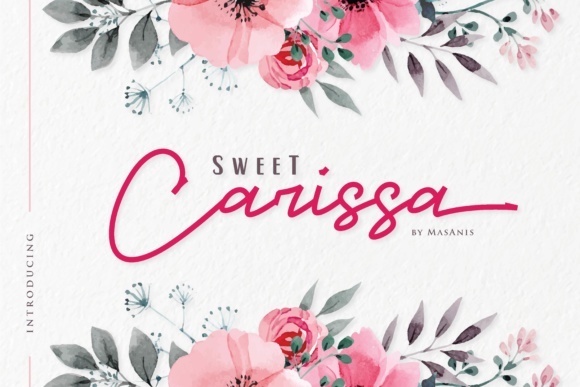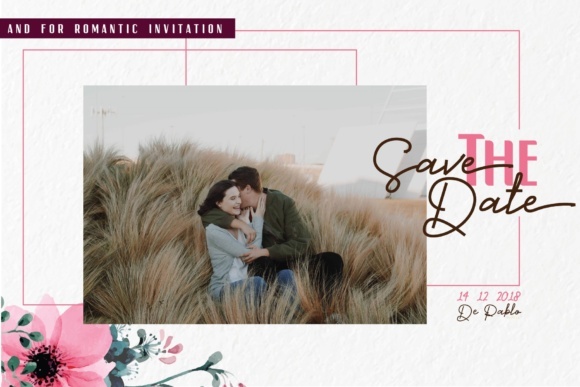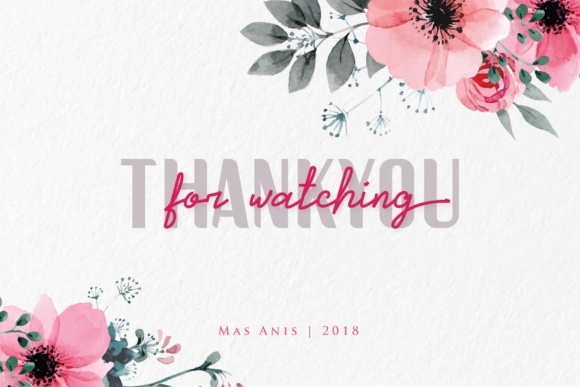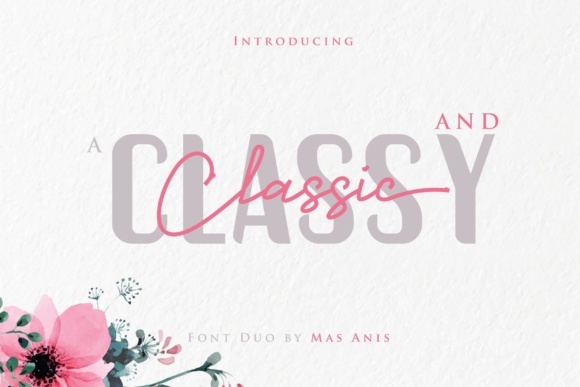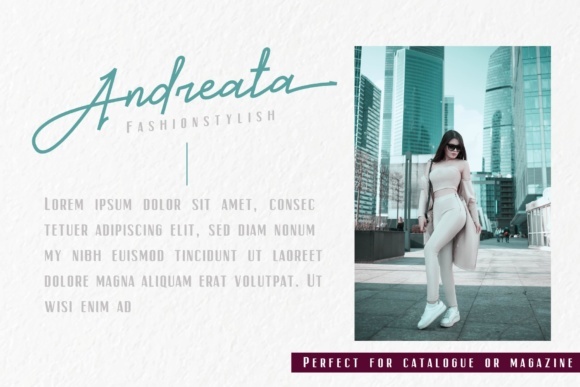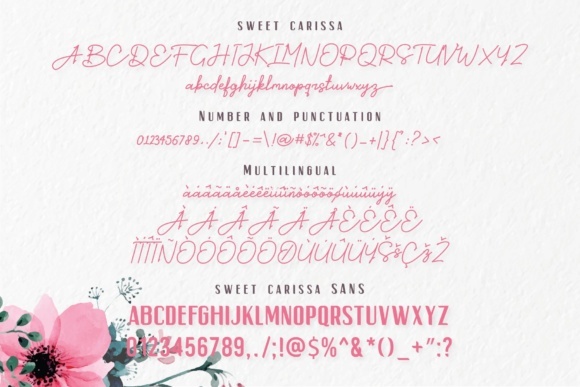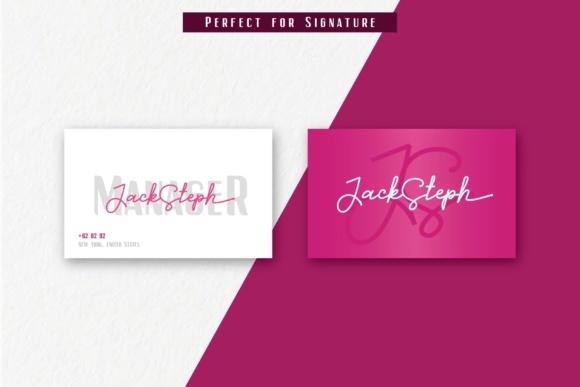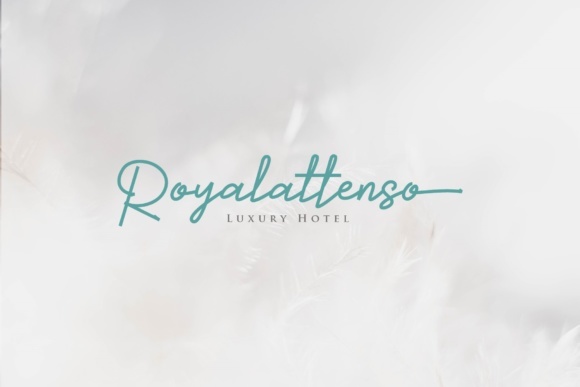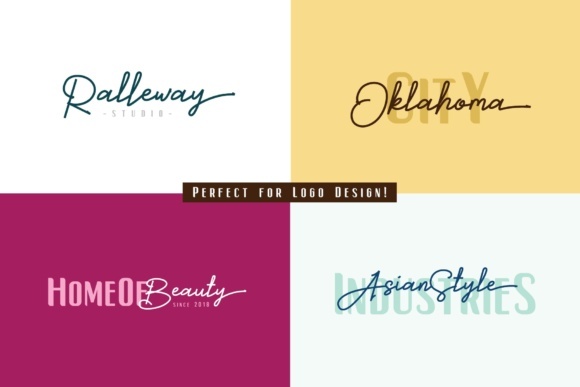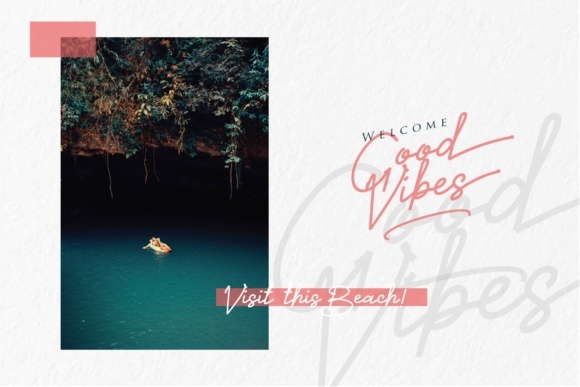
Sweet Carissa Font
About Sweet Carissa Font
Sweet Carissa is a classic and lovely signature font duo, perfect for use in a wide range of romantically inclined projects. This font is easy to use, and this duo is completely harmonious so typography is made easy no matter what project you undertake.